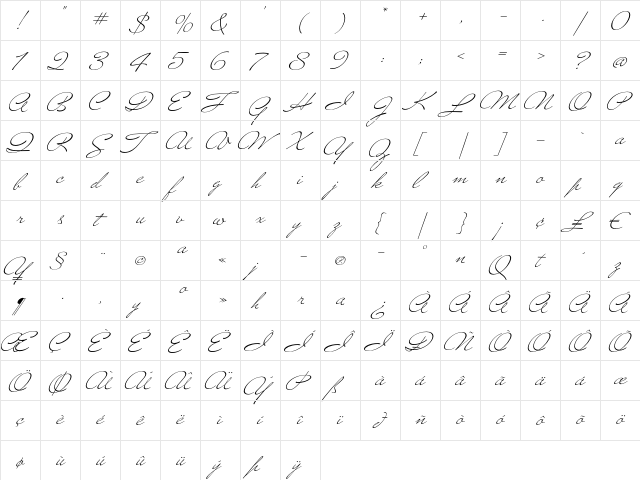
MrBlaketon Regular
Design Context for MrBlaketon Typeface
MrBlaketon is a composed and adaptable typeface that performs quietly and consistently across a wide range of design contexts.